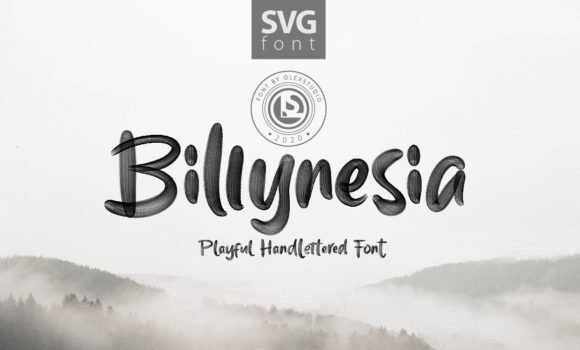
billynesia
Billynesia Font – Free Download Introduction to Billynesia Font Billynesia is a chunky lettered display font, created with the help of a unique brush pen. 📸 Preview Gallery 6 images 📌 Product Name Billynesia Font 👤 Author Olexstudio 📂 Category